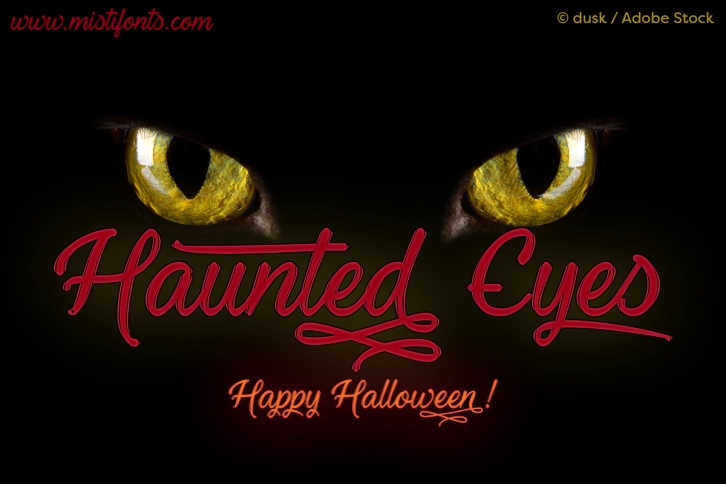
Haunted Eyes is a trendy and unique font with an authentic style. It was designed by Misti Fonts and it's a great choice for creative people who need such a font. It was released on October 27, 2017 and the file size is 18.9 MB. Haunted Eyes will add an organic vibe to any design idea!